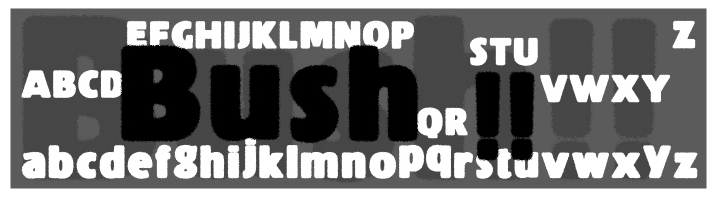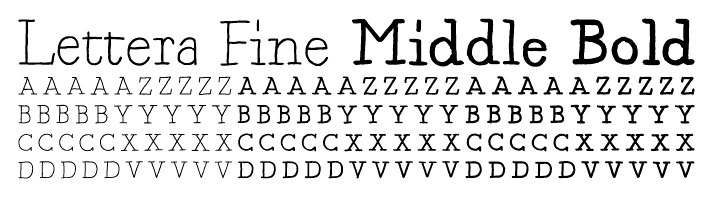
Sugargliderz [Shuji Kikuchi]
Shuji Kikuchi from Hadano, Kanagawa, Japan, was born in 1972 in Osaka. His foundry, est. 2006, is called Sugargliderz.
Free fonts: Frail (2011, a 6-style grungified didone family), Cuneiform (2006-2008, this is a cuneiform simulation font), Fragment Core, Proto Uncertain (handwriting), Shears, Unnamed.
Commercial fonts: Puchiflit (2020: a typewriter slab serif that according to Kikuchi is a felt tip pen font), Pinch Remix (2020: hand-printed), Oddlini (2019: a 360-style basic grotesk family that covers all widths; it has obliques instead of italics), Oddlini 2 (2019), Knock Type (2017, a kana-Latin-Braille transcription font), Du (2016, a hand-printed font), Magendfret (2016, a warm typewriter family), Artlessness (2015), Bush (2014), Nora Pen (2014, a didone influenced by Walbaum), Uncertain Felttip (2008), the Palindrome family (2006, experimental), Pinch (2007, hand-printed), ScratchWithTheCoin (2007, grunge), Bagworm (2007, four styles, influenced by Tekton), Decay (2008, grunge), Beg Before (2008, grunge), Beg After (2008, grunge), Phoebus Palast (2008), Kropotkin (2008, 24 styles of a sturdy early 20th century grotesk), Rebuild-Square (2009, totally square family), Ponytail (2009, rounded), Violadabraccio (2009, serif), Lettera, Bush, Long Haul Trucker (2009, alphading/logo font), Michel (2009, didone).